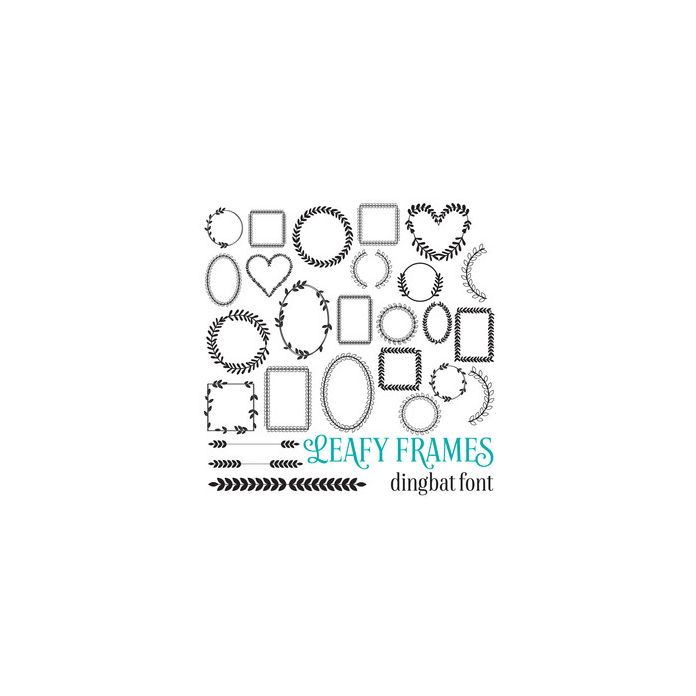
leafy frames font
Leafy Frames Dingbat Font. With 26 Leafy Frames and Accessories. Each is allocated to an uppercase and lowercase letter and can be found via glyphs.